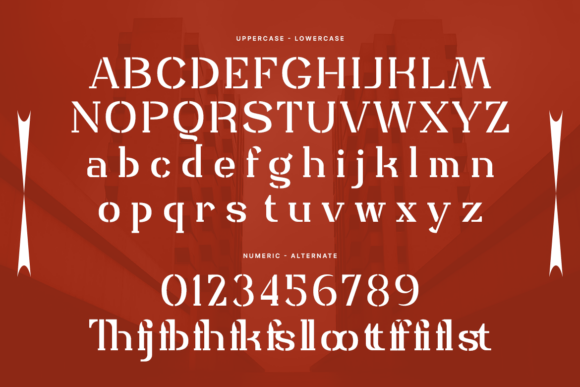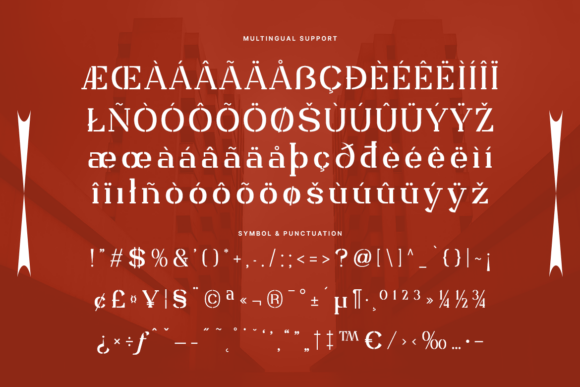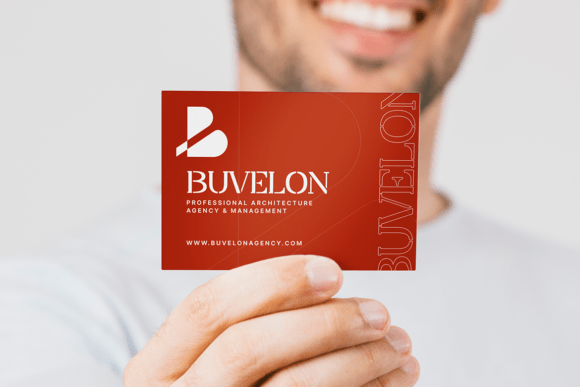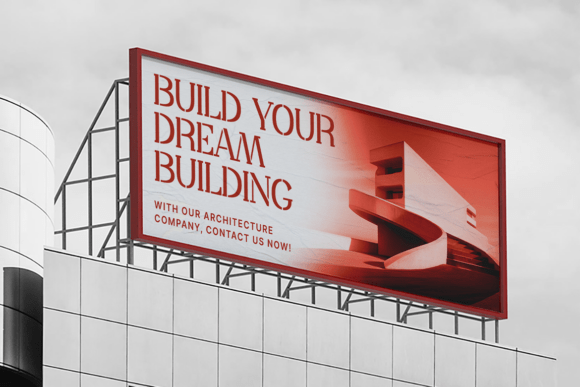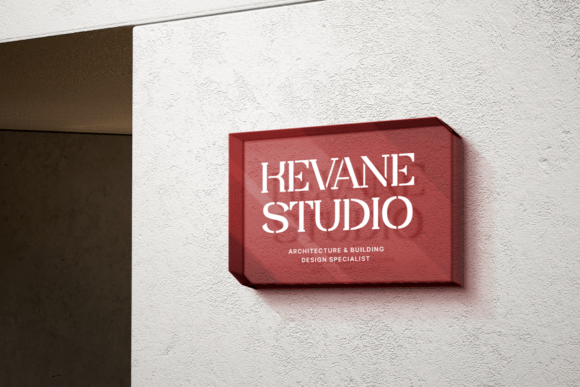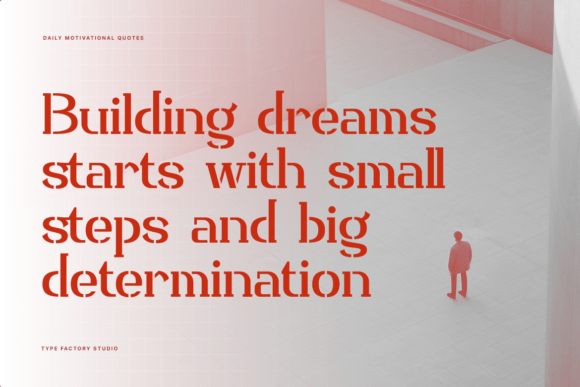
Introducing Enaris Font: A Stencil Serif Typeface for Bold Designs
In the world of typography, a well-designed font can make all the difference in creating a lasting impression. For designers and crafters looking for a unique and impactful serif style, Enaris Font is an excellent choice. This stencil serif typeface seamlessly blends structured letterforms with bold cut-out details, making it perfect for a wide range of applications.
The Design of Enaris Font
Enaris Font boasts clear slab-like serifs and precise stencil gaps, delivering a strong architectural presence that commands attention. The sharp contrast between thick stems and clean stencil breaks gives Enaris a technical yet refined character, making it suitable for designs that require a structured and impactful serif style.
One of the standout features of Enaris Font is its ability to maintain readability across display sizes. Whether you’re using it for branding, editorial headlines, posters, signage, packaging, or corporate identity systems, Enaris ensures that your message is conveyed clearly and effectively.
Key Features of Enaris Font
- Uppercase and Lowercase Letters: Enaris Font includes a comprehensive set of uppercase and lowercase letters, making it suitable for a wide range of design applications.
- Numerals and Punctuation: The font also includes numerals and punctuation marks, ensuring that you have everything you need to create professional-looking designs.
- Alternates and Ligatures: Enaris Font offers alternates and ligatures, giving you even more flexibility and creative control over your designs.
- Multilingual Support: With multilingual support, Enaris Font is perfect for designers and crafters who work with international clients or want to create designs that cater to diverse audiences.
Applications of Enaris Font
Enaris Font’s versatility makes it suitable for a wide range of design applications, including:
- Branding: Create a lasting impression with Enaris Font’s bold and structured serif style, perfect for logos, business cards, and brand guidelines.
- Editorial Headlines: Add a touch of sophistication to your editorial designs with Enaris Font’s clear and readable serif style.
- Posters and Signage: Enaris Font’s bold and impactful design makes it perfect for posters, signage, and other large-format applications.
- Packaging: Create eye-catching packaging designs with Enaris Font’s unique blend of structured letterforms and bold cut-out details.
- Corporate Identity Systems: Establish a strong visual identity with Enaris Font’s structured and impactful serif style, suitable for corporate guidelines, reports, and presentations.
Why Choose Enaris Font?
With so many fonts available, why choose Enaris Font? Here are just a few reasons:
- Unique Design: Enaris Font’s blend of structured letterforms and bold cut-out details sets it apart from other serif fonts.
- Readability: Enaris Font maintains readability across display sizes, making it perfect for a wide range of design applications.
- Flexibility: With a comprehensive set of features, including uppercase and lowercase letters, numerals, punctuation, alternates, ligatures, and multilingual support, Enaris Font offers unparalleled flexibility.
Enaris Font is a powerful and versatile stencil serif typeface that is perfect for designers and crafters looking for a unique and impactful serif style. With its clear slab-like serifs, precise stencil gaps, and sharp contrast between thick stems and clean stencil breaks, Enaris Font delivers a strong architectural presence while maintaining readability across display sizes. Whether you’re working on branding, editorial headlines, posters, signage, packaging, or corporate identity systems, Enaris Font is an excellent choice.